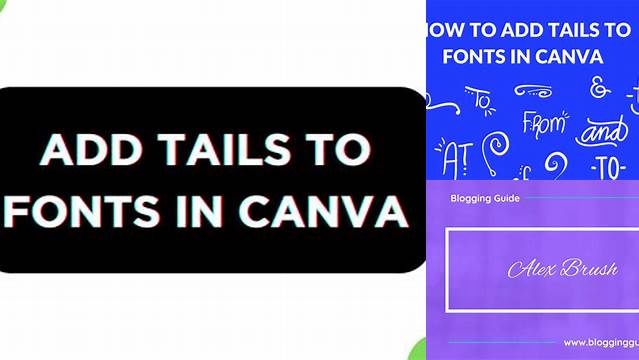
Adding Font Tails In Canva: A Simple Guide
Hey everyone, and welcome back to the blog! Today, we're diving into a super fun and often overlooked design element that can really make your text pop in Canva: adding font tails. You know, those elegant swooshes, flourishes, or decorative extensions that sometimes appear on certain letters? They can add a touch of personality, sophistication, or playfulness to your designs, whether you're creating social media graphics, invitations, or even just a fun quote. Many beginners think this is a super complex process, but trust me, guys, it's way easier than you might imagine. We're going to break down exactly how to find and apply these awesome font tails in Canva, making your designs look chef's kiss professional. So grab your favorite beverage, settle in, and let's get our typography game on point!
Understanding What Font Tails Really Are in Design
So, what exactly are these mysterious "font tails" we're talking about? In the design world, and especially when we're talking about typography, these elements are often referred to as swashes, flourishes, or ligatures. A swash is essentially an exaggerated stroke or extension on a letterform, often found at the beginning or end of a character. Think of those fancy cursive scripts where the 'a' might have a long, looping tail that curves elegantly. A flourish is pretty much the same idea – a decorative flourish added to a letter. Ligatures, on the other hand, are slightly different; they're where two or more letters are joined together to form a single glyph, like the "fi" or "fl" in some fonts. However, in the context of Canva and what users often mean by "font tails," we're usually talking about the swash or flourish kind of extensions. These aren't just random scribbles; they're an intentional part of the font's design, meant to add visual interest and style. They're particularly common in script fonts, serif fonts with decorative elements, and certain display fonts designed for impact. When used effectively, these tails can guide the viewer's eye, add a sense of movement, and convey a specific mood – be it elegant, romantic, whimsical, or bold. Understanding this distinction is key because it helps you search for the right types of fonts within Canva that actually have these features, rather than expecting every font to magically sprout a tail. So, next time you see a stunning font with those beautiful extensions, you'll know you're looking at a well-designed swash or flourish!
Exploring Canva's Extensive Font Library for Tails
Alright, let's get down to business: finding these font tails within Canva's massive library. The first thing you need to know is that not all fonts have swashes or tails. This is a crucial point, guys. You can't just slap a tail onto any old Arial font. The feature has to be built into the font itself. So, how do we find those gems? Your best bet is to start by searching for specific font styles known for having these decorative elements. Think keywords like: "script fonts," "calligraphy fonts," "decorative fonts," "elegant fonts," or "handwritten fonts." When you type these into the Canva search bar (under the 'Text' tab or directly in the main search), you'll get a whole host of options. As you scroll through the results, look closely at the letter previews. Often, the font's preview image or the individual letter examples will showcase these swashes. For instance, a script font might show an 'A' with a long, flowing tail, or a serif font might have a decorative 'Q' with an elaborate flourish. Don't be afraid to click on a font and look at the sample text provided. Canva usually shows a few example words or sentences, which can reveal if the font includes these stylistic extensions. You might also see fonts labeled as "OpenType features" or "stylistic alternates" – these are often indicators that the font has extra goodies like swashes. So, the strategy is: search broad categories, then scrutinize the previews and examples for those tell-tale swooshes. It's like a treasure hunt, and the reward is a beautifully enhanced typography!
The Magic of Stylistic Alternates and Ligatures in Fonts
Now, let's geek out a little on some of the more advanced (but totally cool) features that enable font tails and other fancy bits: stylistic alternates and ligatures. These are often built into more sophisticated fonts, and while Canva might not always give you direct access to every single OpenType feature like a professional design program, it does incorporate many of them. Stylistic alternates are basically different versions of a letter that a designer created to offer more variety and flair. So, one font might have a standard 'a' and then a stylistic alternate 'a' that has a long, flowing tail. The same applies to other letters, like 'e', 's', or 'y'. Ligatures, as we touched on earlier, are special characters created when two or more letters are combined. For example, in some script fonts, the 'f' and 'i' might meld together into a single, elegant character to avoid awkward spacing or create a smoother flow. While Canva might automatically apply some common ligatures (like 'fi' or 'fl') for better readability, it's the stylistic alternates that often give you access to those dramatic font tails. The key here is that the font must be designed with these features. You can't force them. When you're browsing fonts in Canva, especially premium or more artistic ones, look for descriptions that mention "stylistic sets," "alternate characters," or "OpenType features." These are strong hints that you'll find those gorgeous swashes and flourishes waiting for you. So, when you're hunting for that perfect font, keep an eye out for these technical terms – they're often the secret sauce to unlocking those extra decorative elements that make your text stand out.
Finding Fonts with Built-in Tails (Script & Serif Focus)
When you're on the hunt for fonts that already have those awesome tails built-in, your best bet is to focus your search on two main categories: script fonts and certain serif fonts. Script fonts are designed to mimic handwriting, and they are rich with swashes and flourishes. Think about classic calligraphy or modern brush scripts – they are practically defined by their flowing tails and connecting strokes. When searching in Canva, use terms like: "elegant script," "modern calligraphy," "brush script," "handwritten font," or even specific styles like "romantic script." Browse through the results, and you'll see tons of letters with those beautiful extensions. For example, fonts like "Playlist Script," "Great Vibes," or "Parisienne" (just to name a few popular ones) often come with various swash options. On the other hand, some serif fonts also incorporate decorative tails, though it's less common than in scripts. These might be more subtle, perhaps a flourish on the end of a capital letter or a unique tail on a character like 'Q' or 'R'. Search for terms like "decorative serif," "vintage serif," or "display serif." While script fonts are your go-to for dramatic tails, don't discount elegant serif fonts entirely – they can offer a more refined and classic take on the flourish. Remember, the key is that the font itself needs to be designed with these elements. You're not adding them; you're choosing a font that already has them as part of its design DNA. So, dive into those script and decorative serif categories in Canva, and you're bound to find some stunning options that will elevate your text instantly!
How to Access Swash and Tail Features in Canva Text
Okay, guys, this is where the magic really happens! You've found a font that you suspect has tails, but how do you activate them in Canva? It's often simpler than you think. Once you've added text to your design and selected a font that has swashes (let's say, a script font), you'll want to select that text box. Then, look at the toolbar that appears at the top of your editor. Most of the time, the key to unlocking these features is hidden within the three dots (...) icon, often labeled as "More." Click on that, and a dropdown menu will appear. Within this menu, you're looking for options like "Stylistic alternates," "Ligatures," or sometimes specific character variations. If the font you've chosen has these features available, they will be listed here. You might see checkboxes or dropdowns allowing you to choose different styles for specific letters or apply general stylistic sets. For example, clicking "Stylistic alternates" might give you a choice between a standard 'a' and an 'a' with a swash tail. Some fonts might even have specific controls for initial or terminal swashes (meaning tails at the beginning or end of words). It's important to note that Canva's integration with advanced OpenType features can vary depending on the font. Not every single feature of a complex font might be exposed. However, for most common swashes and stylistic alternates, the "More" menu (the three dots) is your go-to spot. Play around with it! Select different letters, click through the options, and see what beautiful variations you can uncover. This is how you transform plain text into something truly special with those elegant font tails!
Using Canva's Text Effects for Tail-Like Styles
While not true font tails in the sense of built-in swashes, Canva offers some seriously cool text effects that can mimic the look of tails or add similar decorative flair. This is a great workaround if the font you love doesn't have built-in swashes, or if you want to add an extra layer of style. Let's dive into how you can use these effects, guys. First, select your text box. In the top toolbar, you'll see an icon that usually looks like an 'A' with some lines around it, often labeled "Effects." Click on that, and a whole panel of options will open up on the left side of your screen. Here's where the fun begins. Look for effects like "Shadow," "Lift," "Neon," "Glitch," and others. For mimicking tails, the "Shadow" effect can be surprisingly useful. By adjusting the offset, blur, and transparency, you can create a subtle extension or a shadow that trails off a letter, giving a similar visual flow. The "Lift" effect adds a subtle shadow and blur that can make text appear to pop off the page, and with careful placement, it can create a sense of depth that feels like a flourish. Some of the more artistic effects, like "Echo" or even creative uses of the "Outline" effect, can also be manipulated to create shapes that resemble tails. It's all about experimentation! You might not get a perfect, smooth swash, but you can definitely add decorative elements that enhance the visual appeal and give a similar vibe. Remember to keep it subtle and cohesive with your overall design – you don't want the effect to overpower the text itself. So, explore the Effects tab, play with the settings, and see if you can engineer some cool tail-like additions to your fonts!
The Shadow Effect Trick for Creating Fake Tails
Let's talk about a really nifty trick using Canva's Shadow effect to create the illusion of font tails, even on fonts that don't have them built-in. This is seriously clutch when you find a font you absolutely adore but it's missing those elegant swooshes. So, here’s the lowdown, guys. Select your text element. Head over to the Effects tab (the 'A' with lines). Choose the Shadow effect. Now, the default shadow might not look like a tail, but we're going to manipulate it. The key settings here are “Offset” (both horizontal and vertical) and “Blur.” To create a tail-like effect, you'll want to adjust the Offset to push the shadow in a specific direction – maybe trailing off the end of a letter like 's' or 'y'. Then, increase the Blur significantly. A high blur setting will soften the edges of the shadow, making it look less like a harsh copy and more like a diffused extension. You can also play with the Transparency to make it more subtle. The idea is to create a soft, elongated shadow that flows from the letter, mimicking the visual weight and direction of a swash. It won't be a sharp, calligraphic line, but it can provide a similar sense of movement and flourish. You might even try applying the shadow effect to a single letter (by duplicating the text, editing one letter, and then layering them) to get a more targeted tail. It takes a bit of trial and error, but mastering this shadow trick can really save a design when your chosen font is lacking those built-in tails. It’s all about creative problem-solving, right?
Manipulating Outline and Glow for Decorative Flourishes
Beyond the shadow trick, we can also get creative with other effects in Canva to add decorative flourishes that evoke the feeling of font tails. Let's talk about the Outline and Glow effects. These can be used in conjunction with your text or even on separate shapes to add that extra bit of pizzazz. First, consider the Outline effect. Found under the Effects tab, this adds a border around your letters. While it's not a tail itself, you can use it creatively. For instance, you could apply a very thick outline to a specific letter (perhaps by duplicating the text, making one layer black, applying a thick outline, and then placing the original text on top) and then strategically erase parts of the outline using the Eraser tool (available for Pro users or via clever layering) to create a partial flourish. It’s a bit more advanced, but doable! The Glow effect is another fun one. It adds a halo of color around your text. If you choose a subtle glow color and adjust its intensity and blur, it can create a soft aura that extends from the letters, giving a subtle sense of embellishment. Think of it as a gentle halo that adds a bit of magic. For a more direct approach, try using the Glow effect on a separate shape or even a duplicate, slightly offset text layer, and then manipulate its color and size to create a smooth, flowing line that attaches to your main text, almost like a modern, abstract tail. It requires some layering and careful alignment, but the results can be unique and eye-catching. These effects are all about pushing the boundaries and seeing what visual flair you can add beyond the standard font features.
We’ve covered a lot of ground on adding awesome font tails in Canva, but like any design element, there are potential traps you can fall into. Avoiding these common pitfalls will ensure your typography elevates your design, rather than dragging it down. Let’s talk about what not to do, guys, so you can create polished, professional-looking results every time. These are the mistakes that can instantly make a design look amateurish, so pay attention!
Overuse and Clutter: The 'More is More' Fallacy
This is probably the biggest offender when it comes to font tails: the **